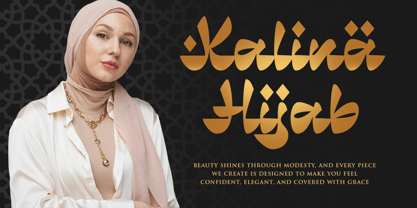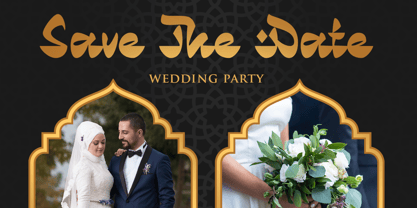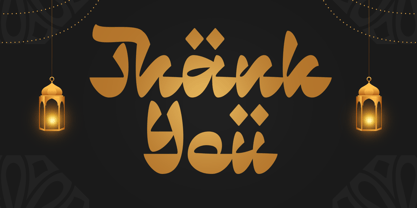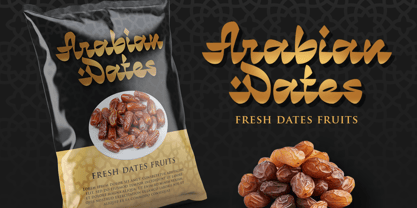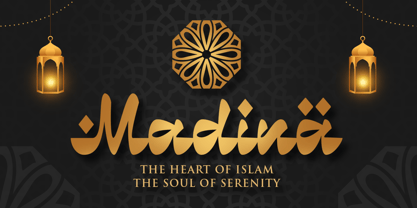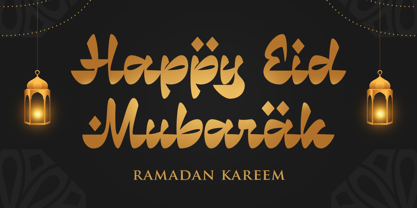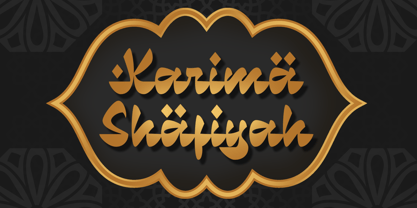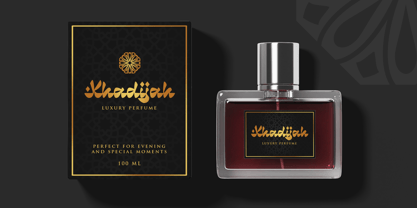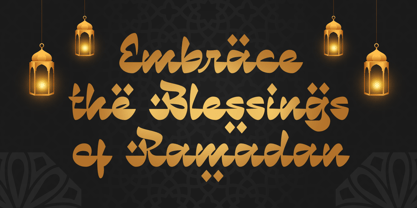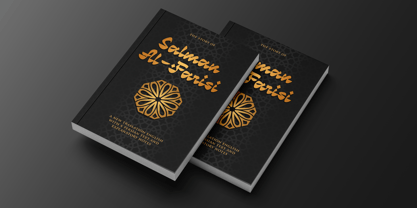
Ramadan Delight
by Blankids
The Ramadan Delight Font Family was designed by Bangkit Tri Setiadi and published by Blankids. Ramadan Delight contains 1 styles.
Hello, awesome people! This time, we have a new font called Ramadan Delight an arabic display font by Blankids Studio.
Ramadan Delight an arabic display font is made for any professional project branding, such as logotype, watermarks, poster, branding, promotions, product packaging, etc. Every letter has a arabic style design.
Ramadan Delight font includes a full set of arabic style uppercase and lowercase letters, numerals and punctuation. This font has a arabic display style. See the previews above to get some inspiration on how to use them. Happy designing!
Designers: Bangkit Tri Setiadi
Publisher: Blankids
Foundry: Blankids
Design Owner: Blankids